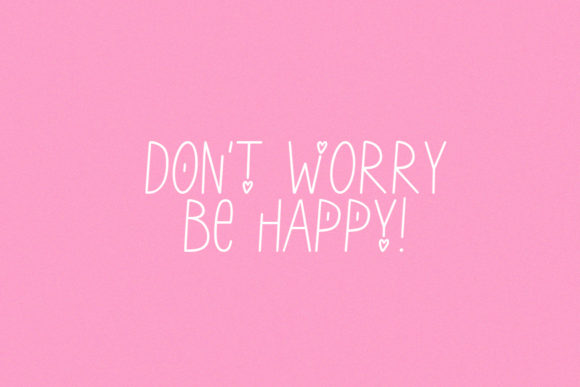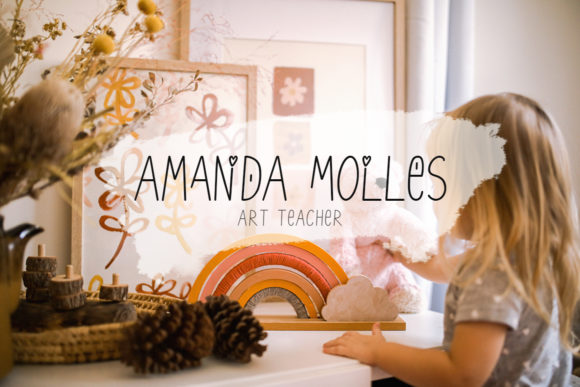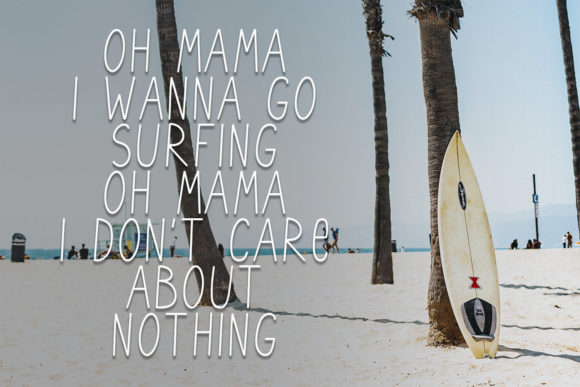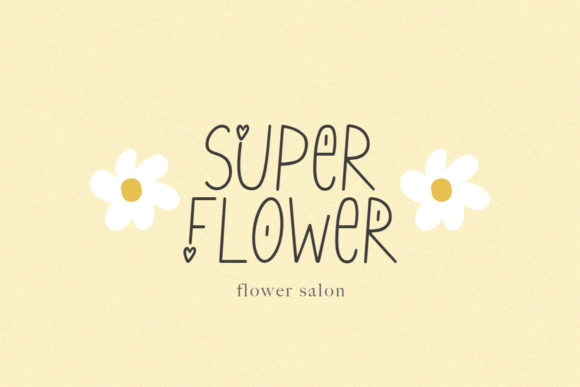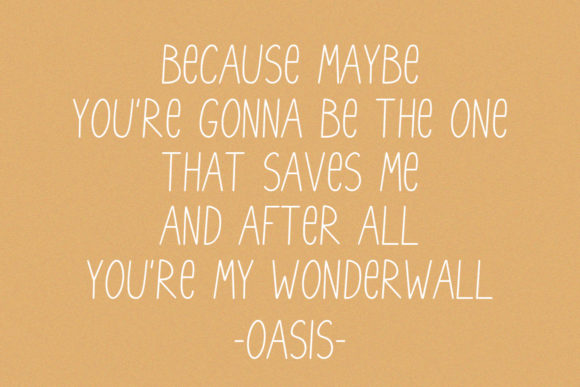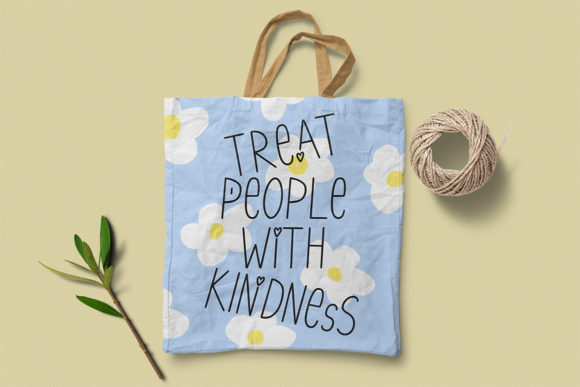
Introduction to Mister Another Font
Do you ever find yourself staring at a blank canvas, wondering what design element will bring your creative project to life? For many designers, the perfect font can be the missing piece that makes all the difference. I still remember the moment when I stumbled upon the Mister Another Font – a minimal and neat handwritten font that instantly elevated the aesthetic of my design.
As a valuable design resource, Mister Another Font offers a unique blend of elegance and sophistication that can seamlessly integrate into a wide range of creative projects. With its high-quality design and transparent background, this font is a must-have for designers seeking to add a touch of personality to their work.
Key Features of Mister Another Font
- High-quality design resource ideal for creative projects, including graphics, logos, and branding materials.
- Features a transparent background, allowing for easy customization and layering with other design elements.
- Comes in a range of sizes, from 12pt to 72pt, to accommodate various design needs and preferences.
- Designed with a high resolution of 300 DPI for crisp and clear display on various mediums, including print and digital platforms.
- Unique and stylish design makes it an excellent choice for creative professionals and hobbyists alike, adding a touch of sophistication to any project.
Honest Review: Mister Another Font
As a designer, I’m always on the lookout for high-quality design resources that can elevate my creative projects. Mister Another Font is one such resource that I’ve recently had the chance to try out. In this review, I’ll share my honest thoughts on what works well and what doesn’t.
- ✨ Clean and modern aesthetic: Mister Another Font has a sleek and sophisticated design that works well for a variety of creative projects.
- ✨ Wide range of glyphs: The font includes a wide range of glyphs, making it suitable for various languages and applications.
- ✨ Transparent background: This feature allows for easy use in design projects where a transparent background is required.
- ⚠️ Limited font sizes: While the font includes a wide range of glyphs, it’s limited in terms of font sizes, which can be a drawback for some designers.
- ⚠️ Not suitable for all operating systems: I encountered some issues with the font rendering on certain operating systems, which was a bit frustrating.
Overall, I think Mister Another Font is a great addition to any designer’s toolkit, especially for free download. However, it’s essential to be aware of its limitations, particularly when it comes to font sizes and compatibility. With some tweaks and adjustments, it can be a fantastic design resource for creative projects.
How to Use Mister Another Font
Using in Creative Projects
Mister Another Font is a high-quality design resource that can be used in a variety of creative projects. It’s perfect for designs that require a modern and sophisticated look. You can use it in graphic designs, logos, brochures, and other marketing materials.
Tips for Getting the Most Out of Mister Another Font
For the best results, use Mister Another Font on a transparent background or with a solid color that complements the font’s design. You can also experiment with different font sizes and styles to create a unique look.
Mister Another Font is commonly used in creative projects that require a modern and sophisticated look, including graphic designs, logos, brochures, and other marketing materials. It’s also a great choice for presentations and documents that require a professional look.